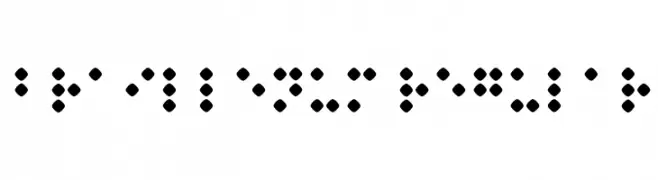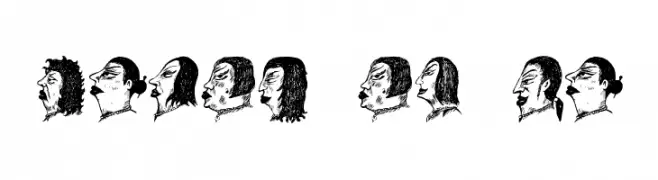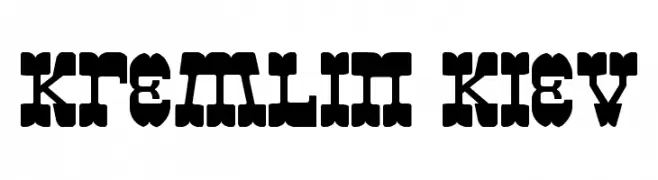
( Lettersiro Studio - Muhammad Sirojuddin - creativemarket.com/Lettersiro )
A bold, playful script font with smooth curves and exaggerated serifs.
( Måns Grebäck - www.mansgreback.com )
A bold, expressive script font with decorative swirls and high contrast.
( SSI.Scraps - Syukur Setiyadi - www.creativefabrica.com/designer/syukursetiyadi/ )
An ornate, swashed font with elaborate decorative elements.
( Syahputra - creativemarket.com/Bexxtype )
A flowing, cursive font with elegant loops and swashes.
( Vladimir Nikolic - www.coroflot.com/vladimirnikolic )
A Braille font representing characters with raised dot patterns for tactile reading.
( Vladimir Nikolic - www.coroflot.com/vladimirnikolic )
A collection of artistic human profile illustrations, not a traditional font.
( Vladimir Nikolic - www.coroflot.com/vladimirnikolic )
A bold, decorative font with intricate patterns, inspired by traditional Mexican design.
( Bolt Cutter Design - www.boltcutterdesign.net/index.html )
A bold, geometric font with a strong, traditional Slavic influence.
( Canada Winayan )
A bold, serif font with a traditional yet modern style, ideal for headlines.
( MPG Graphics - www.mpglighting.com )
A pictorial decorative font featuring stylized female portraits.